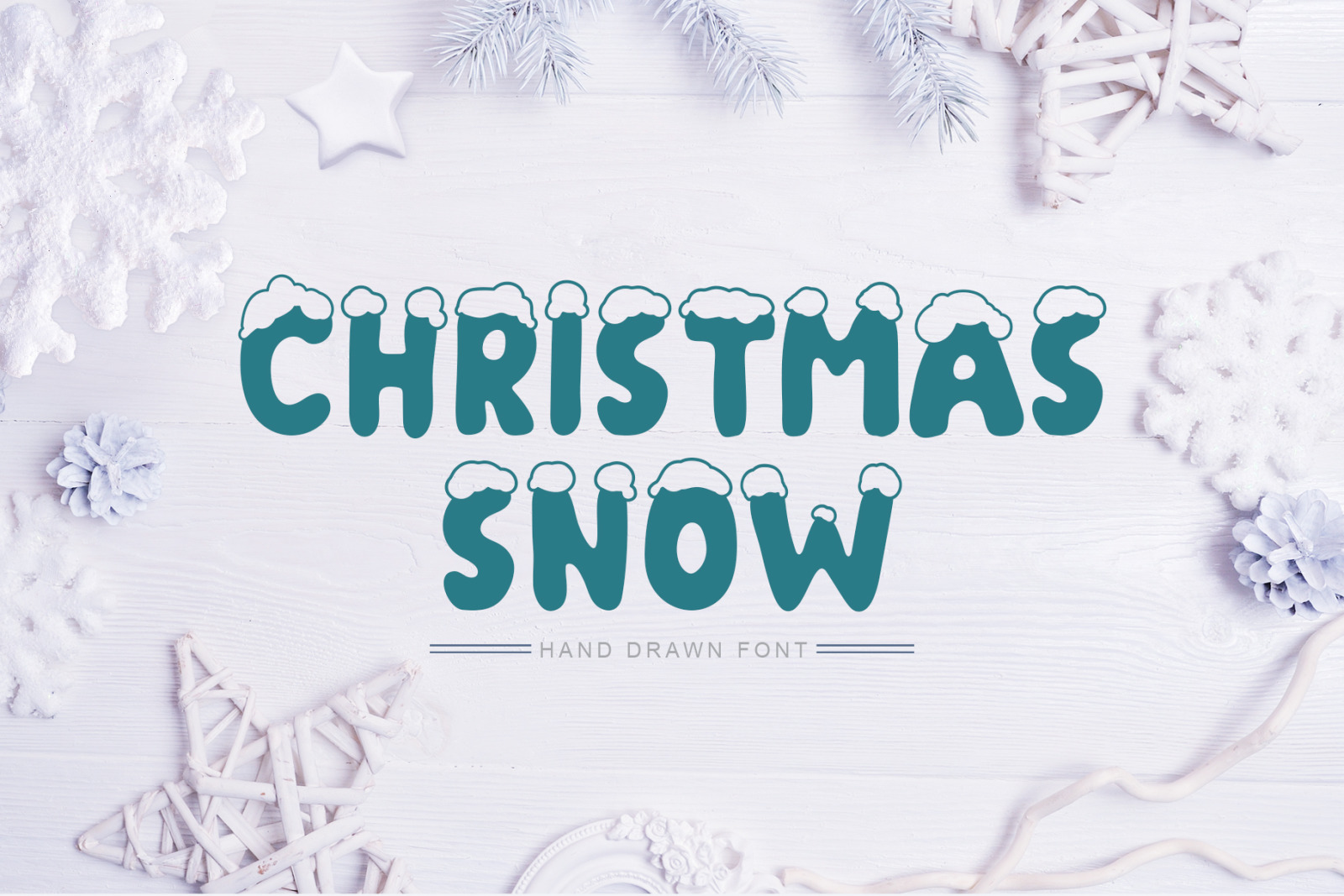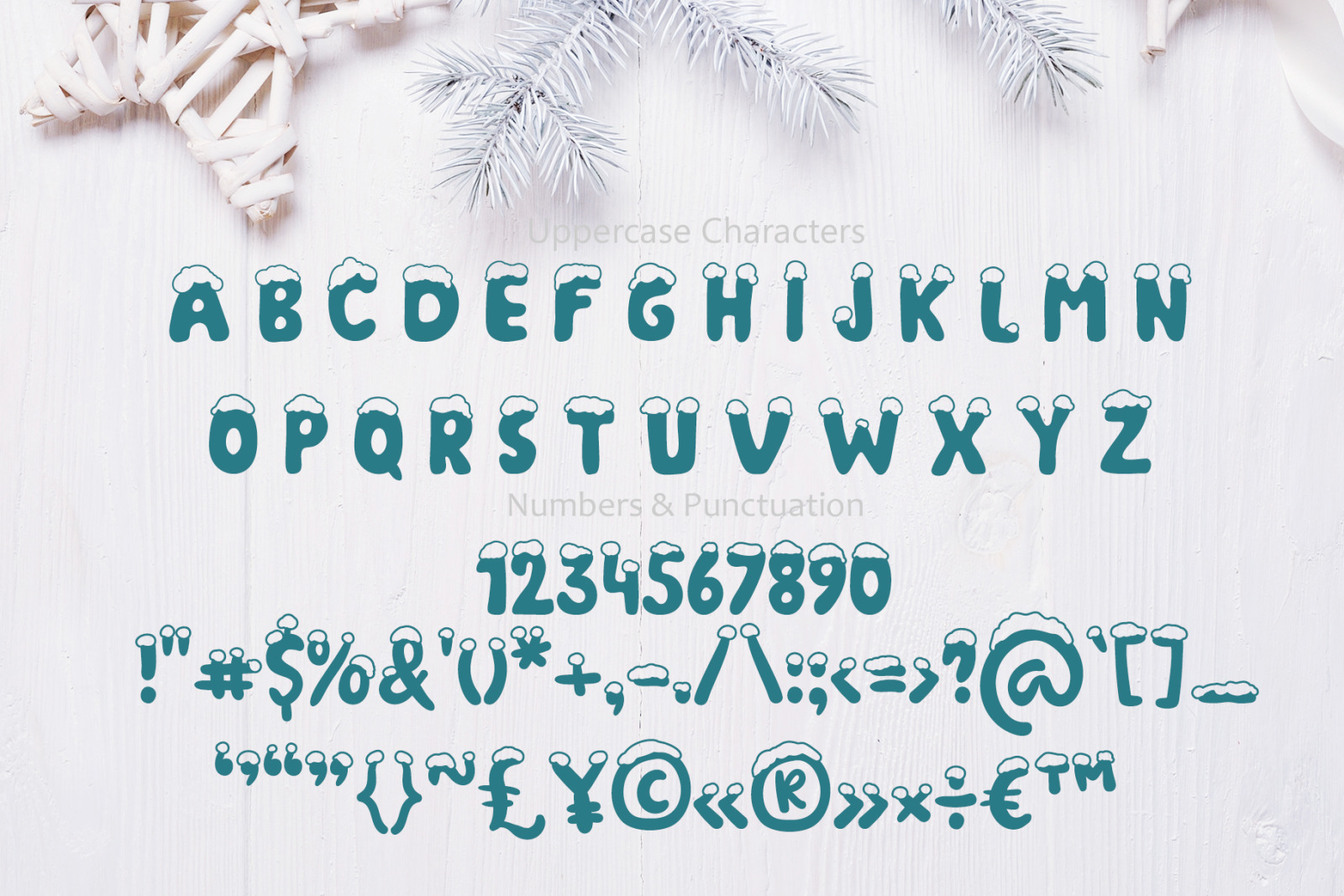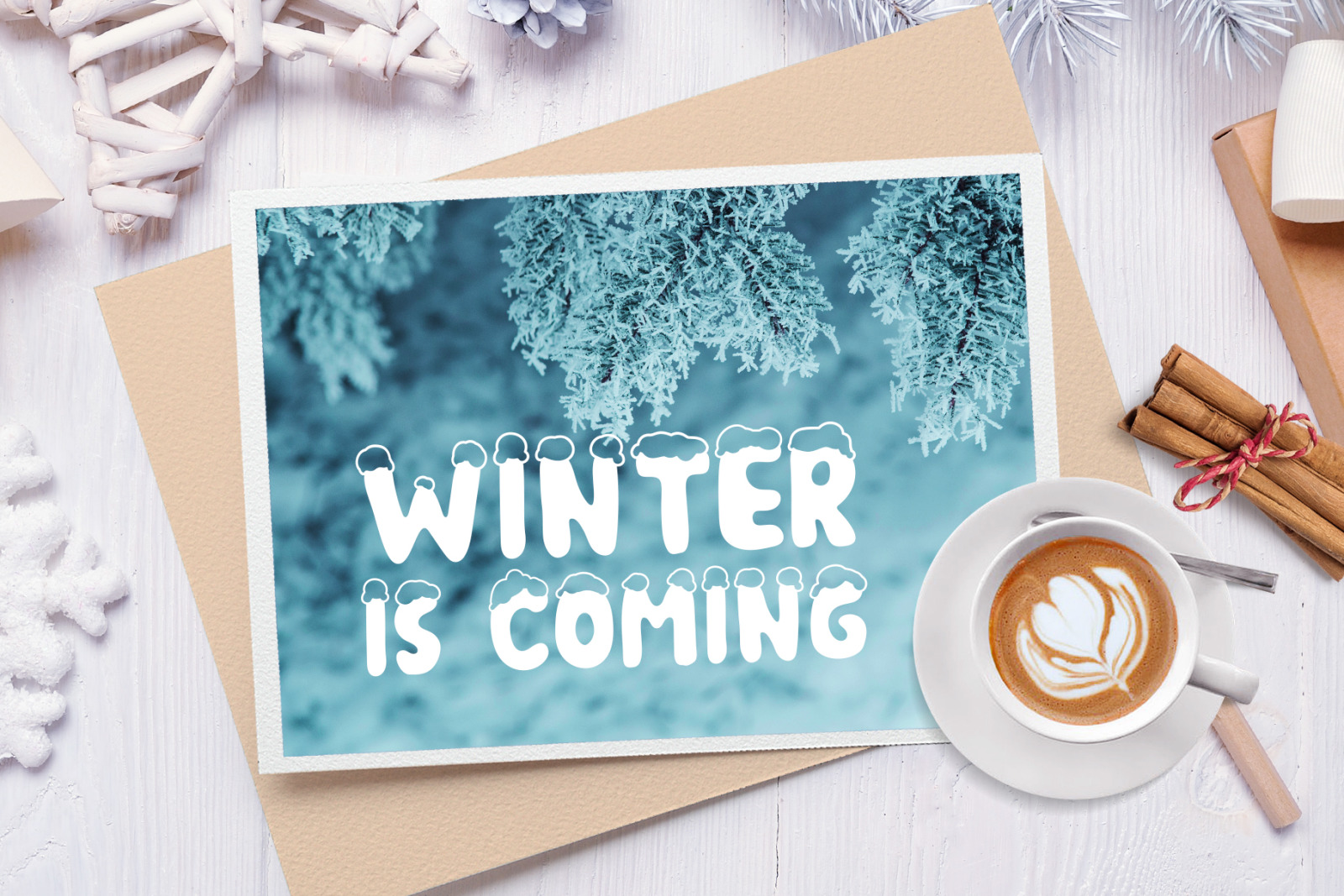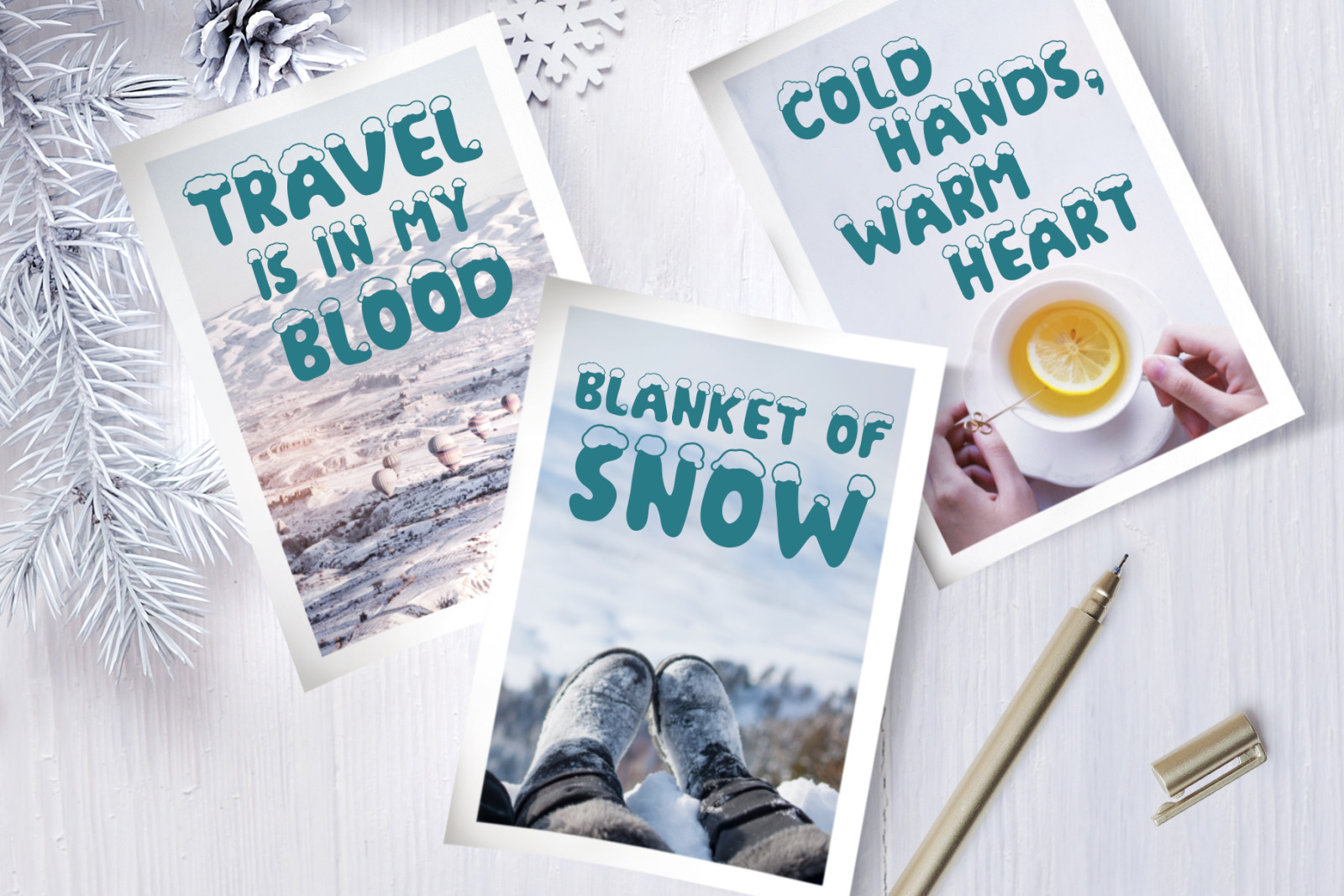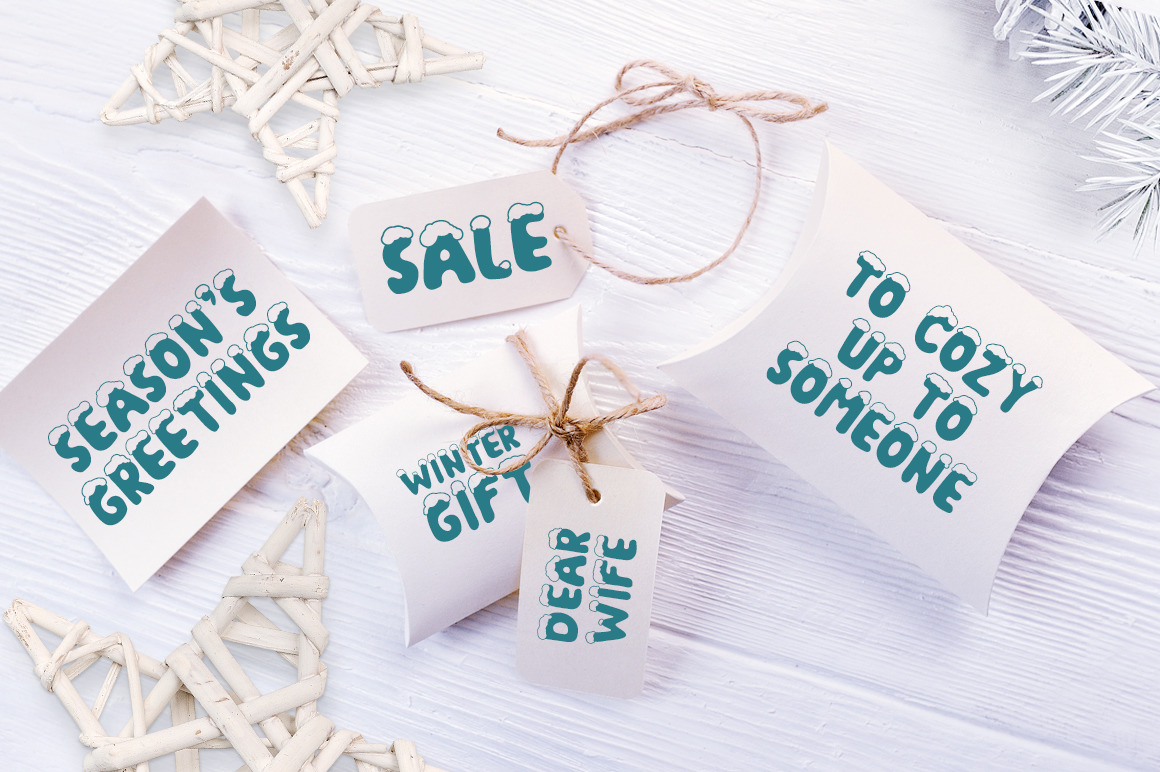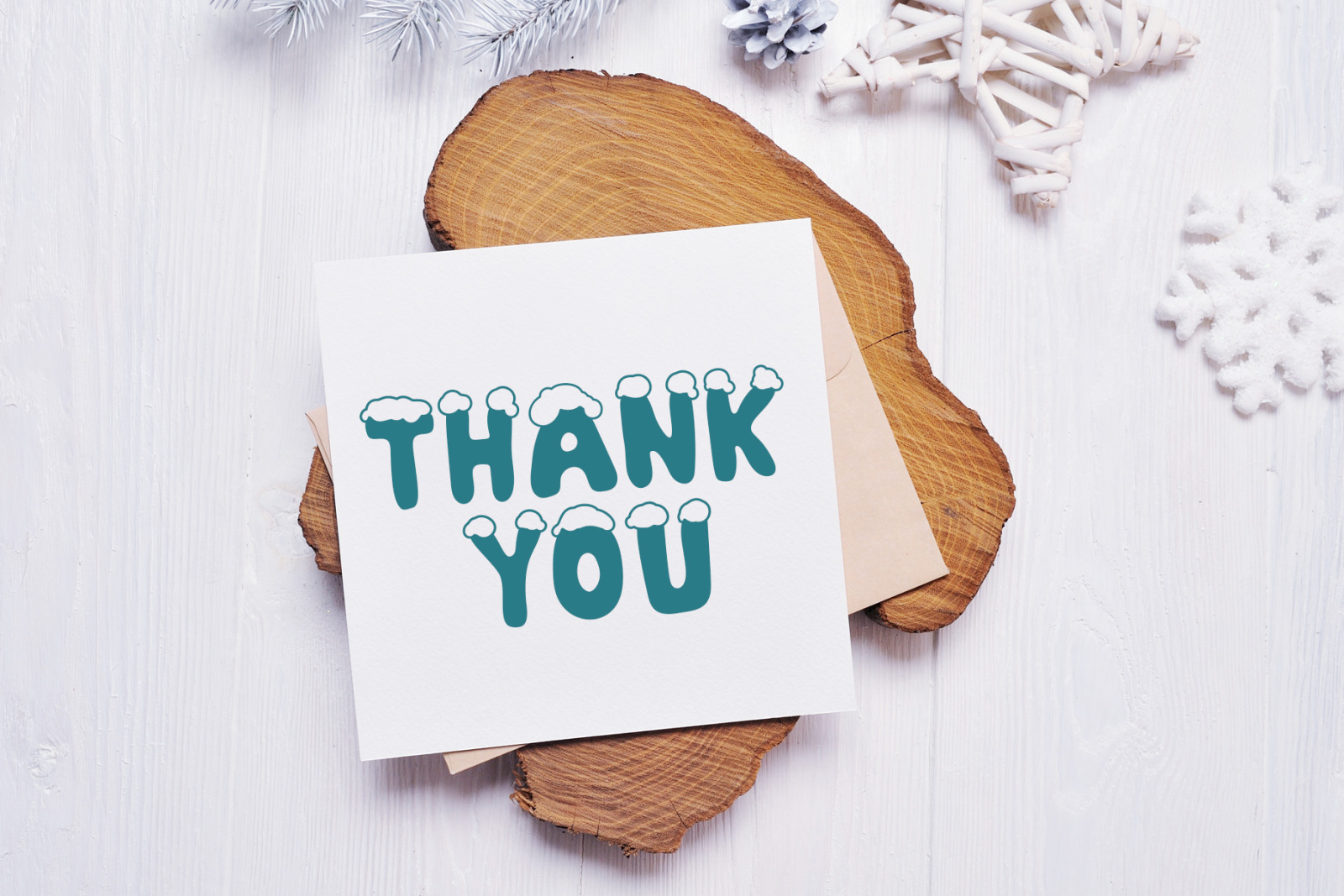
Christmas Snow Hand Drawn Font
Winter handmade Christmas Snow Hand Drawn Font is modern display font.
Christmas Snow Hand Drawn Font is beautiful instrument for designers, blogers and everybody who loves doodle scandinavian or hygge style.
Titles for kid`s book, scrapbook, logo, icon, phrases or quotes for winter greeting cards (Christmas or New Year holidays), photo overlay, short phrases, children’s book, gift shops tag, presentation in social media Pinterest, Instagram, Facebook or other.